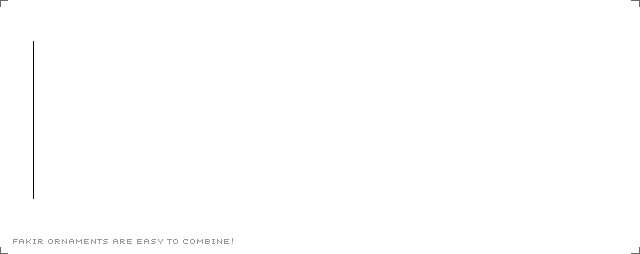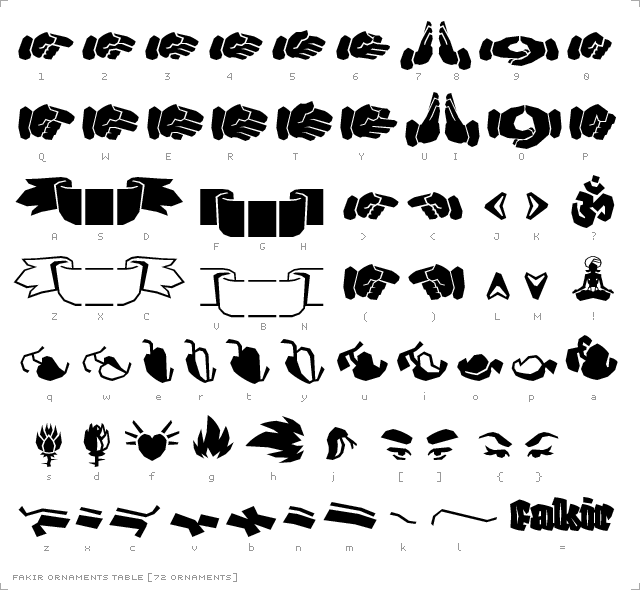
Fakir Ornaments
This is an extra set of fleurons, hands, banners and more. All arranged for an easy access on standard qwerty-keyboards. Apply for both text and display. Fakir Ornaments are only available in the complete Fakir package.
Here you can see the ornaments table.